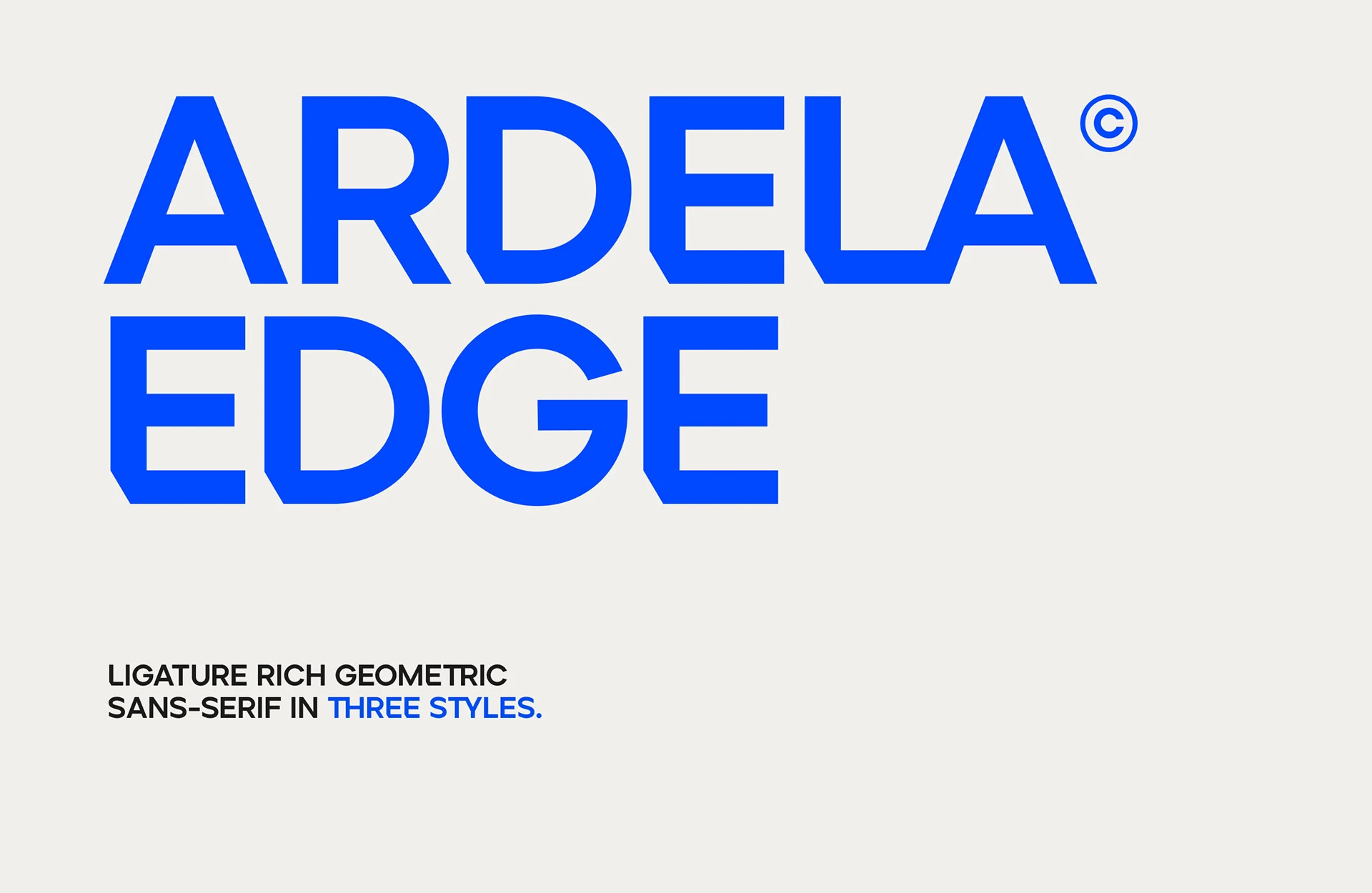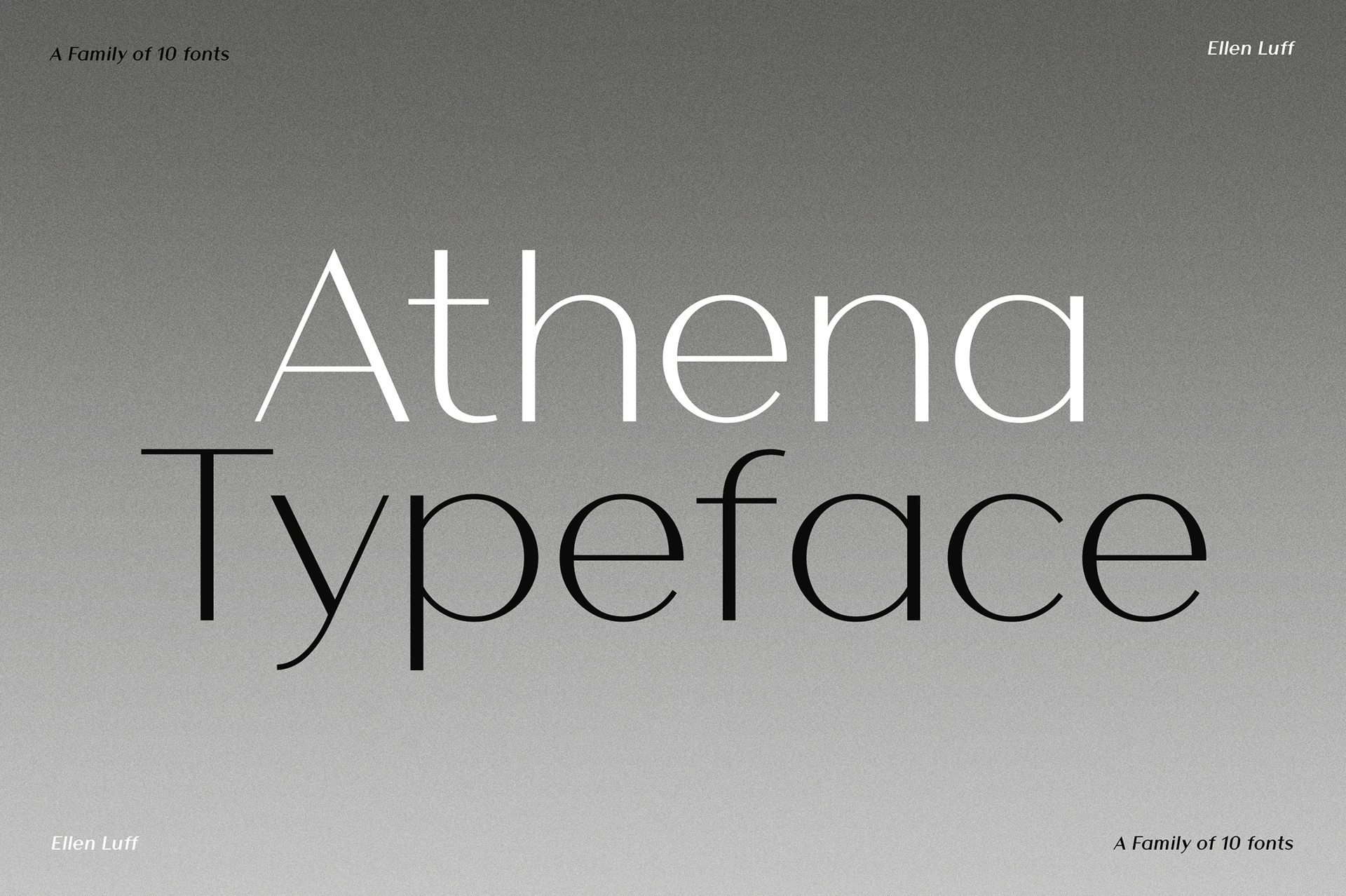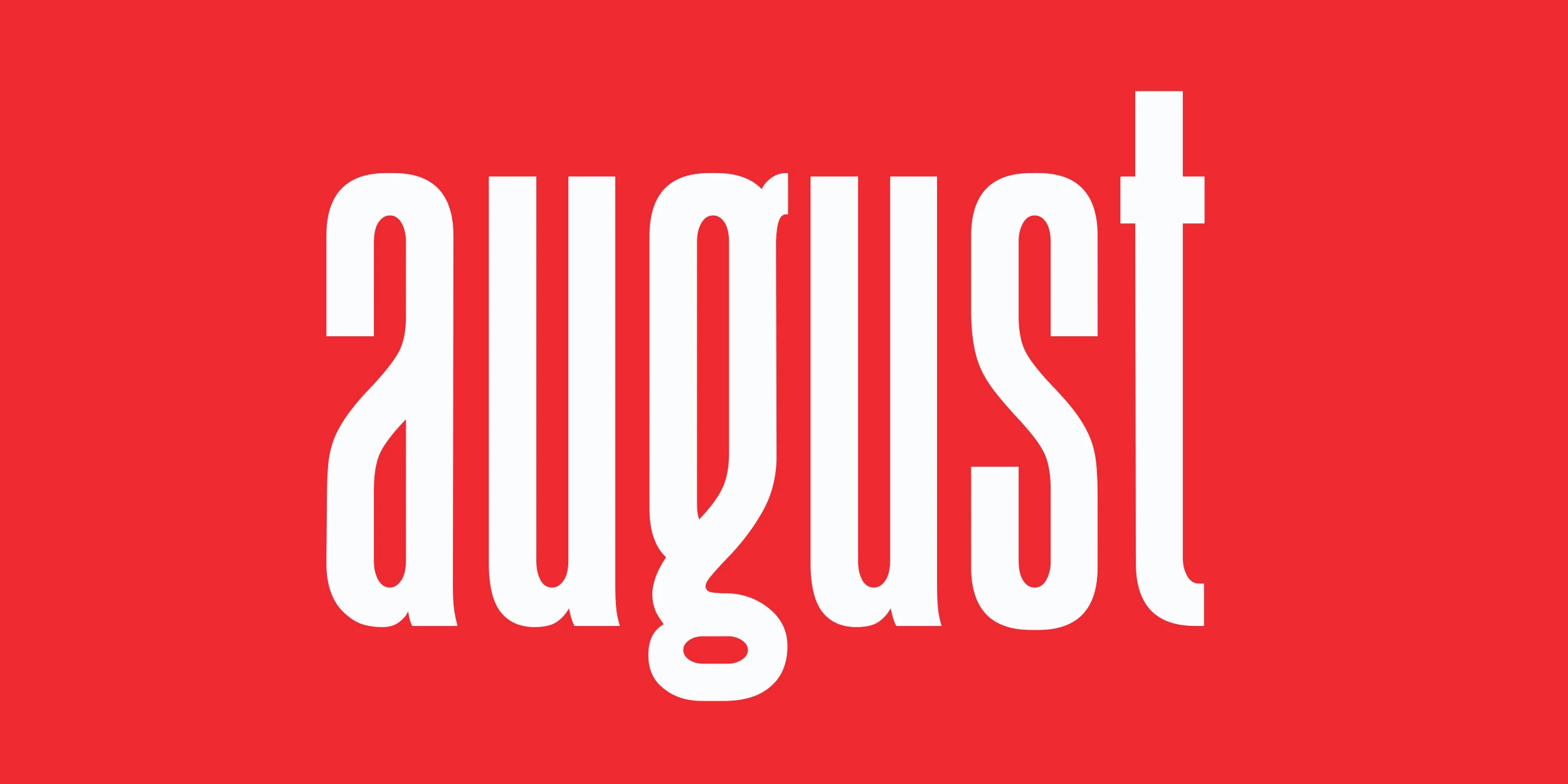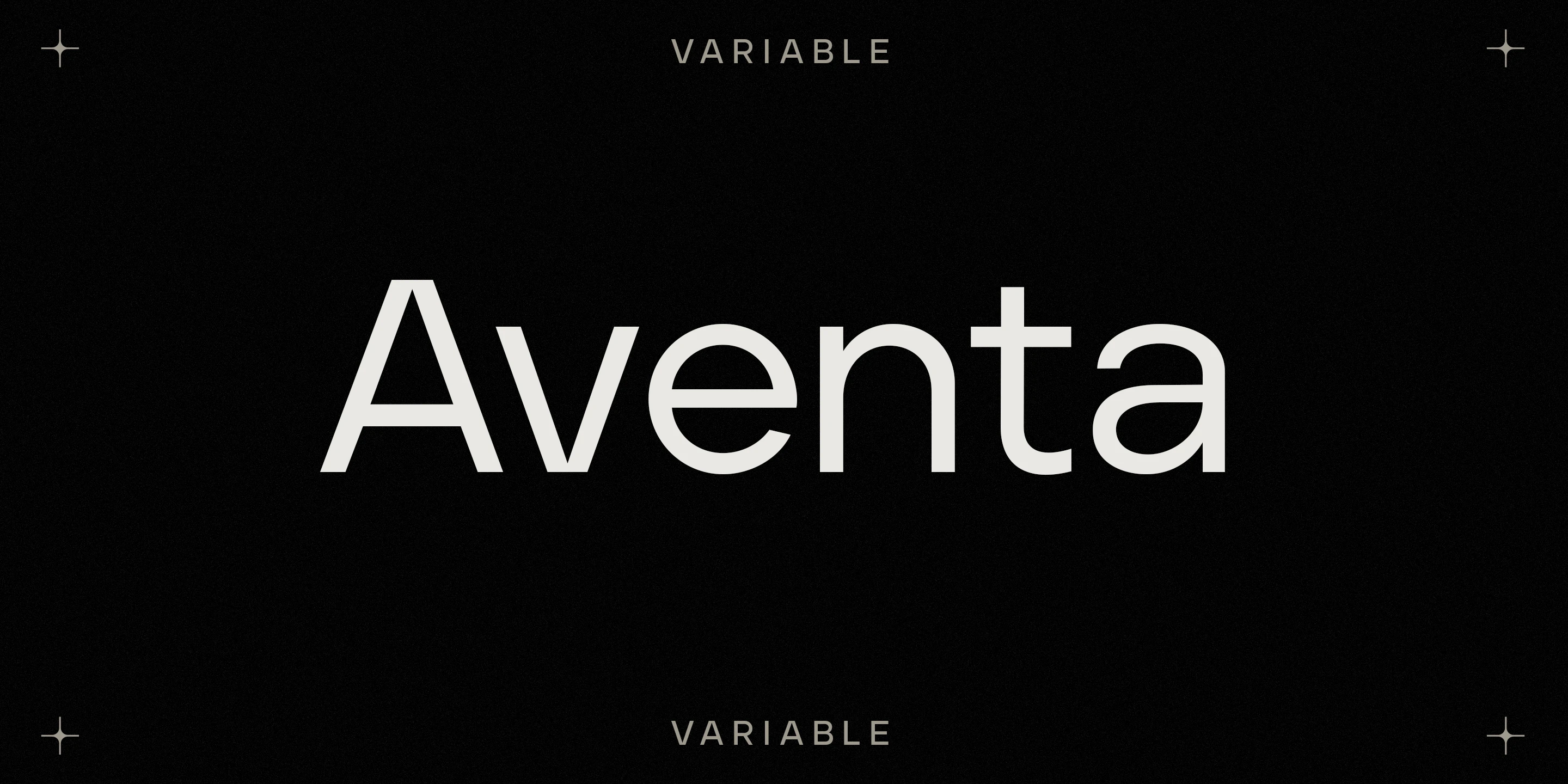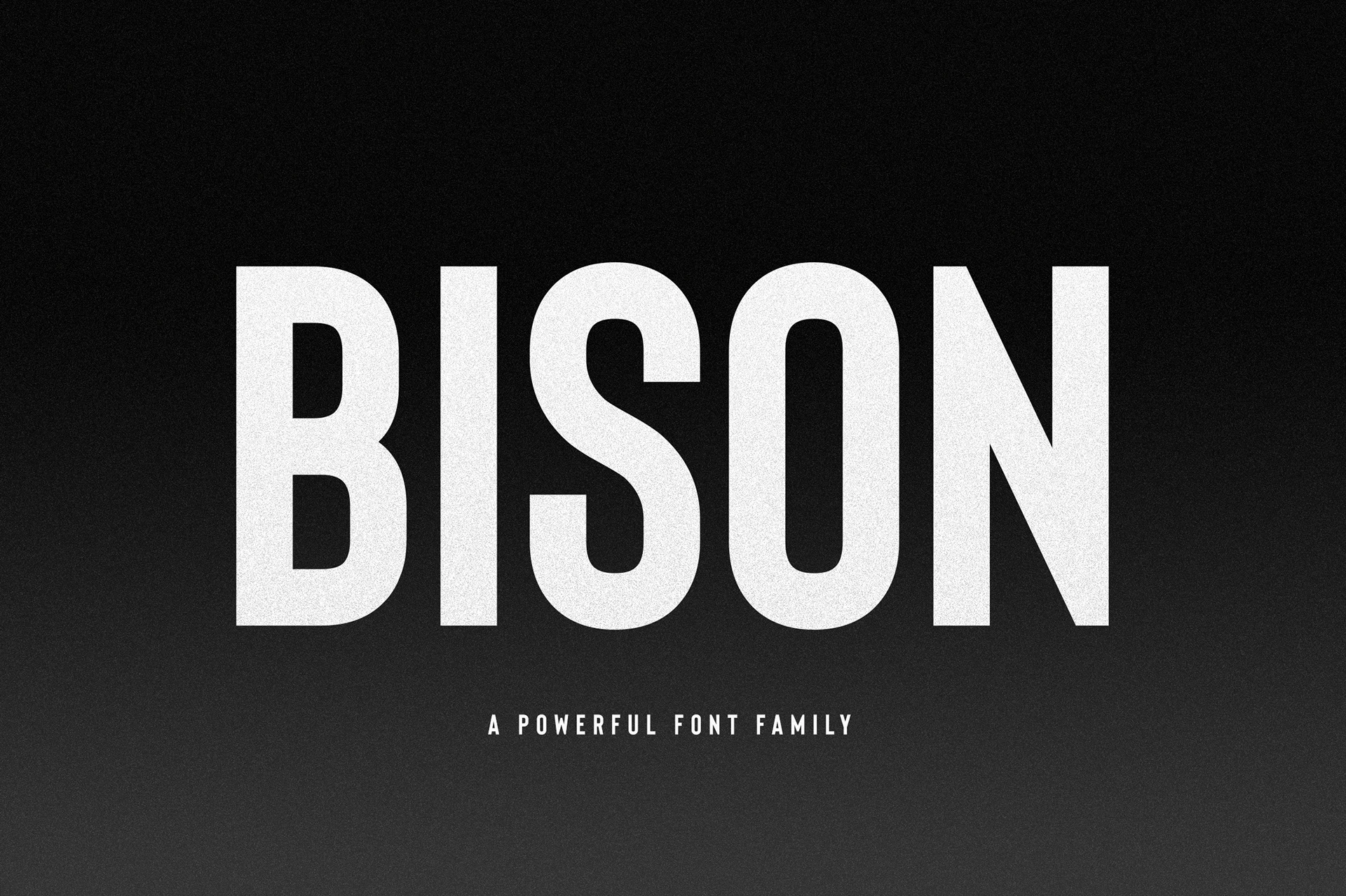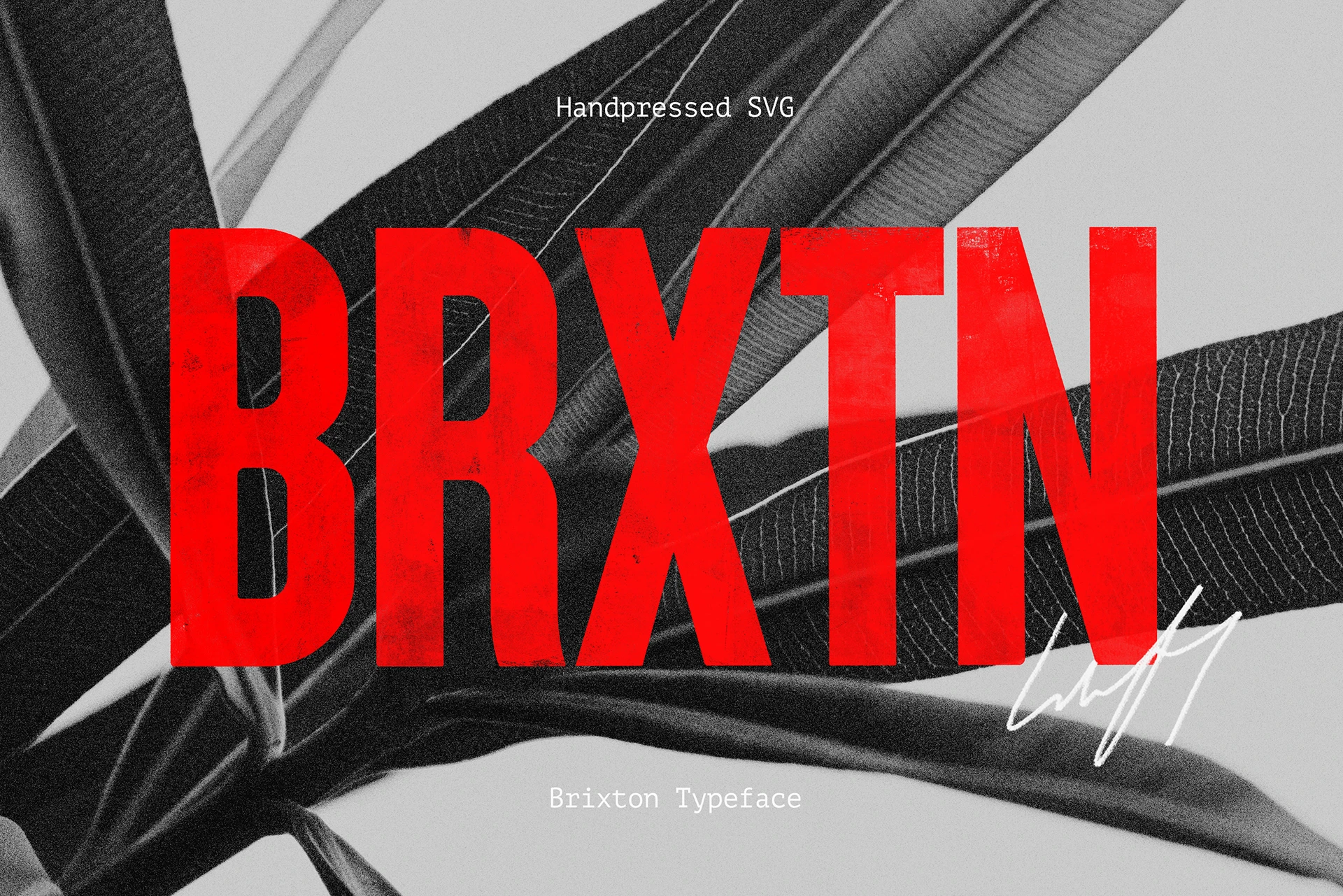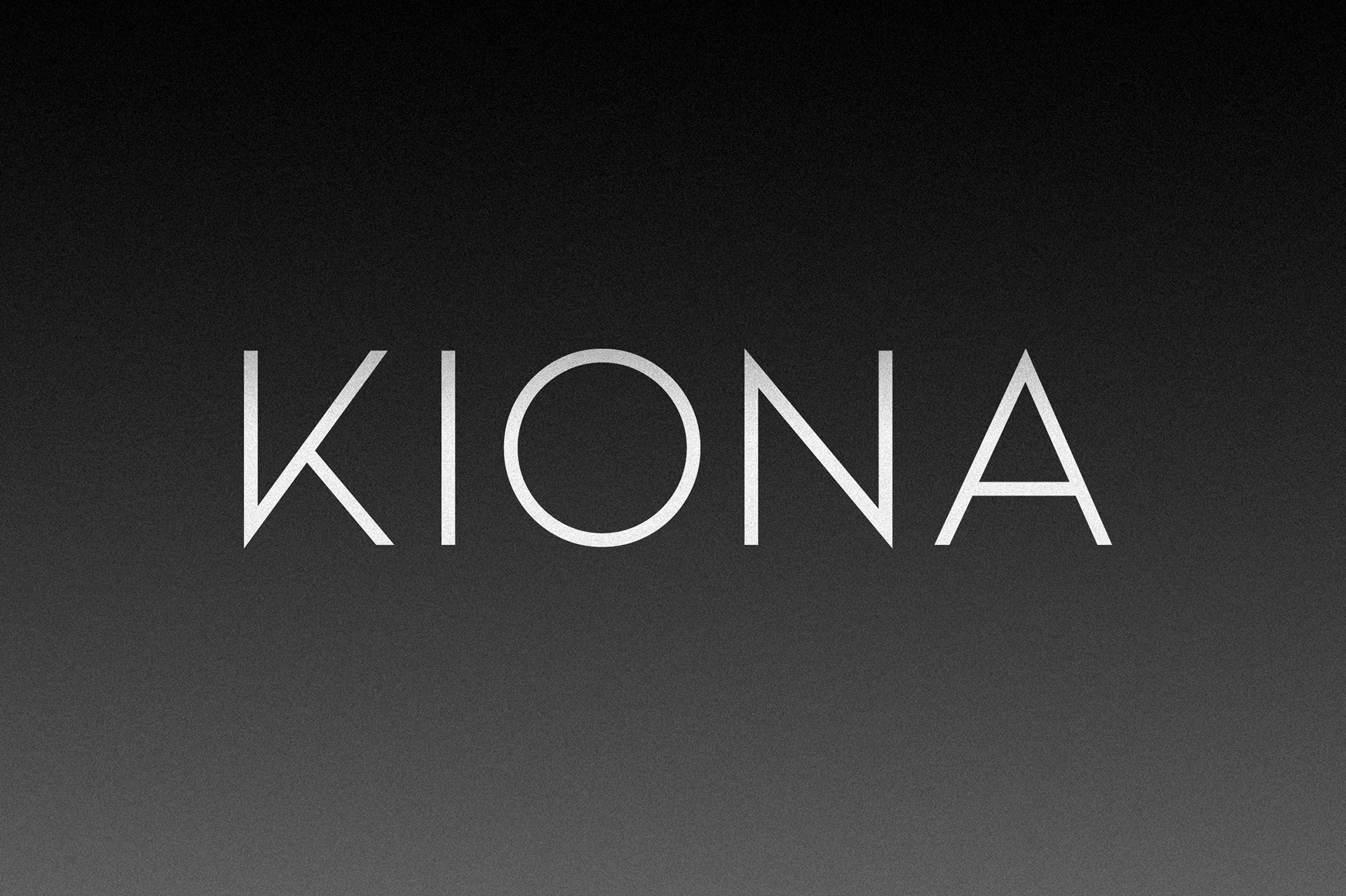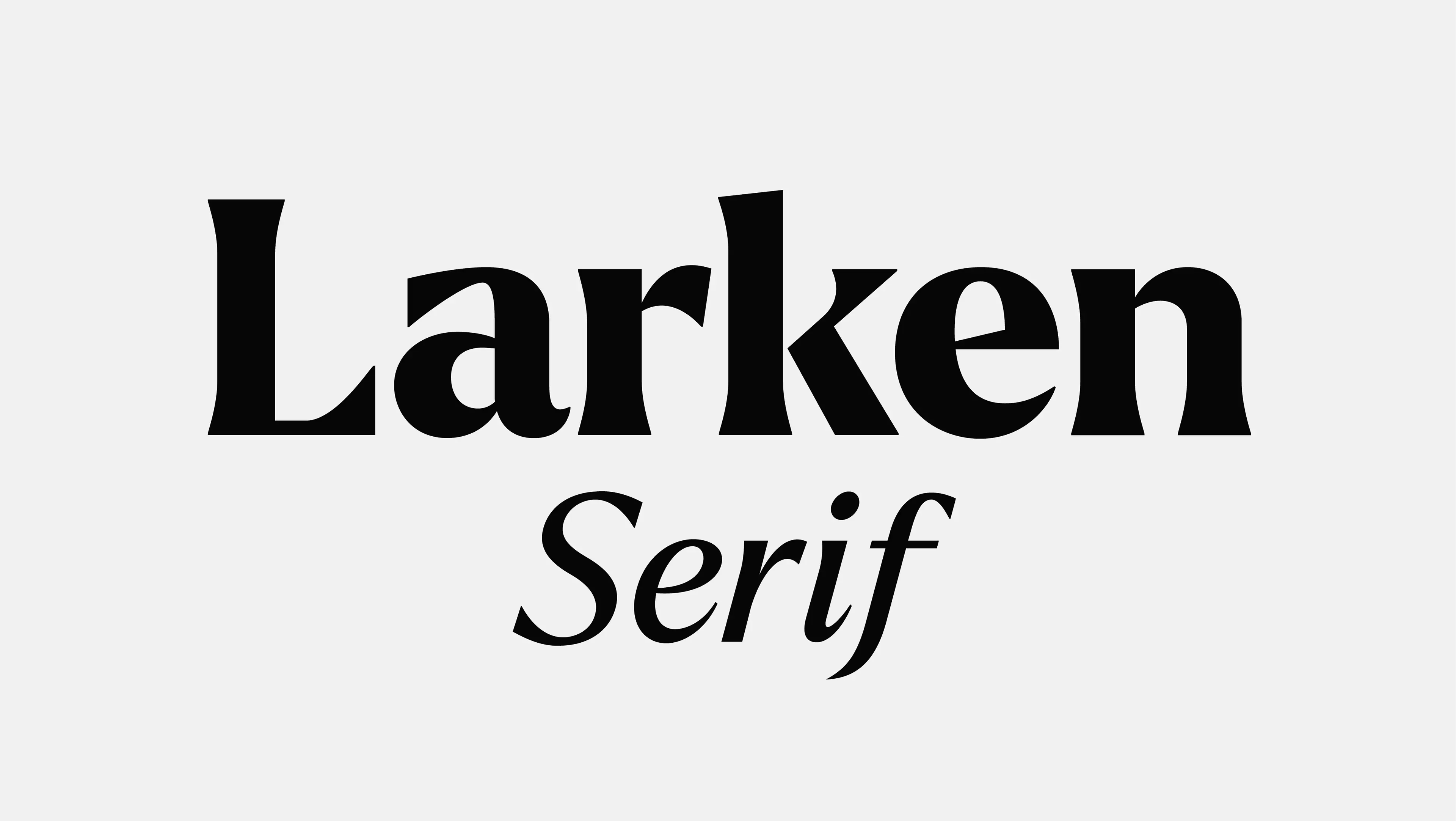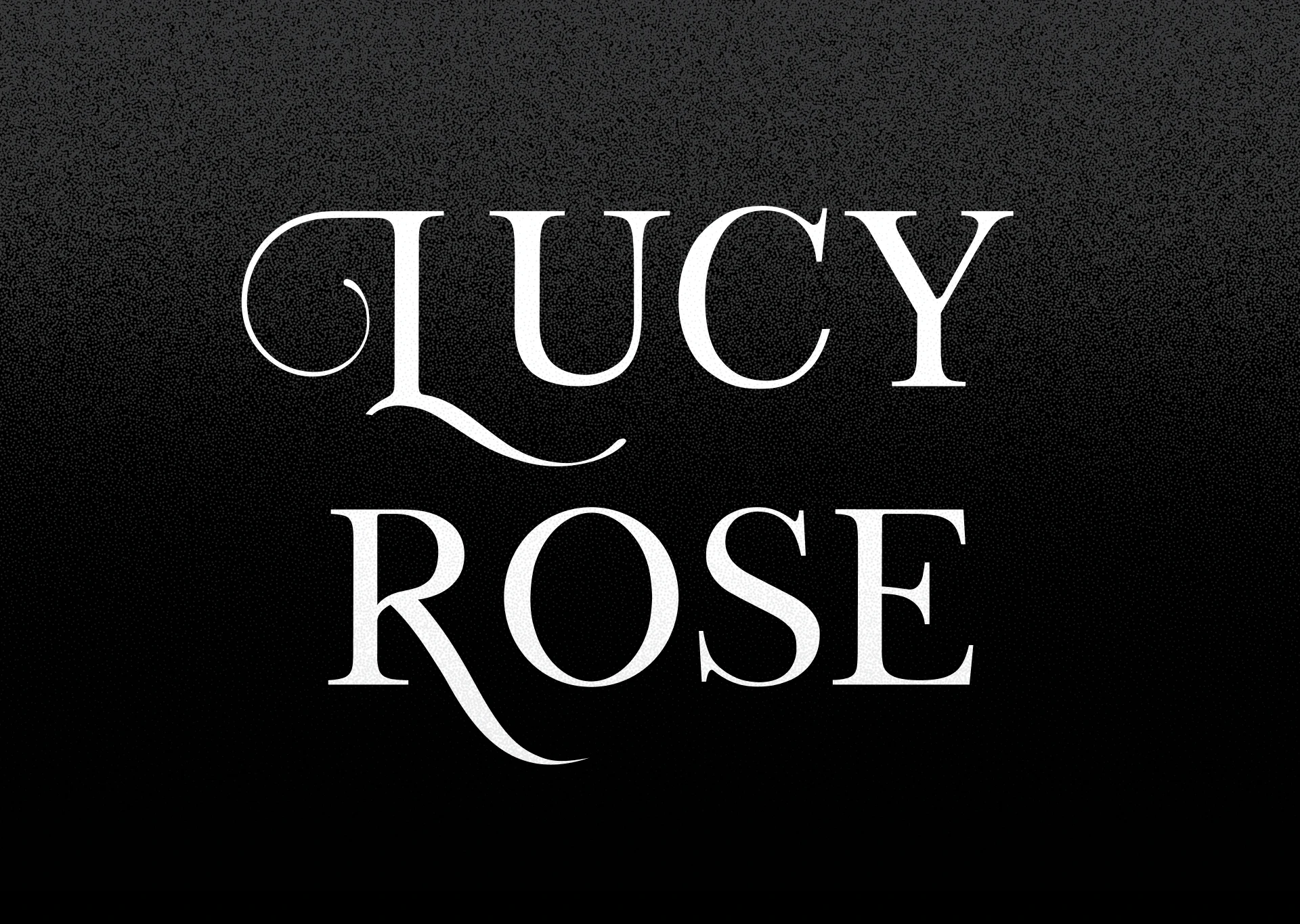
Larken
Larken blends organic curves with bold utility — 7 weights and true italics make it perfect for expressive, versatile design from headlines to body text.
Kiona
KIONA is a clean, all-caps sans serif with 4 weights and italics — crisp, modern, and versatile for bold headlines, sleek branding, and stylish design.
Bison
Bison is a bold all-caps sans with strong lines and smooth curves — built for impact, elegance, and standout presence in any display setting.
Brixton
Brixton is a bold hand-printed all-caps sans with vintage textures — ideal for striking branding and editorial work in three distinct styles.
Hackney
Hackney is a rugged all-caps hand-painted sans with bold brush textures — perfect for impactful branding, packaging, film, and editorial design.
Aventa
Aventa is a versatile geometric sans with modern cuts and sharp edges — ideal for text and display in books, magazines, branding, and interfaces.
Ardela Edge
Ardela Edge is a bold geometric sans with sharp cuts, unique ligatures, and three all-caps styles — perfect for titles, covers, and headlines.
Athena
Athena is a high-contrast sans with Didone roots, blending elegance and function — ideal for branding, headlines, titles, and body copy.
August
August is a bold condensed sans with elegant curves and strong impact — perfect for posters, titles, logos, and standout display design.
Jeko
Jeko is a modern geometric sans with sharp cuts and high legibility — ideal for logos, branding, signage, and everyday use across all sizes.
Leyton
Leyton is an elegant display serif with a modern twist — perfect for titles, branding, packaging, editorials, and stylish overlays or invitations.
Peckham Press
Peckham Press is a bold, hand-pressed font with gritty texture and street-style flair — perfect for posters, film titles, book covers, and bold design.
Sherman
Sherman is a soft yet bold all-caps sans serif with slanted terminals and rounded edges — perfect for headlines, branding, signage, and bold designs.
Lucy Rose
Lucy Rose is an all-caps serif with 100+ swashes, made for standout, custom-feel typography — ideal for branding, editorials, packaging, and more.